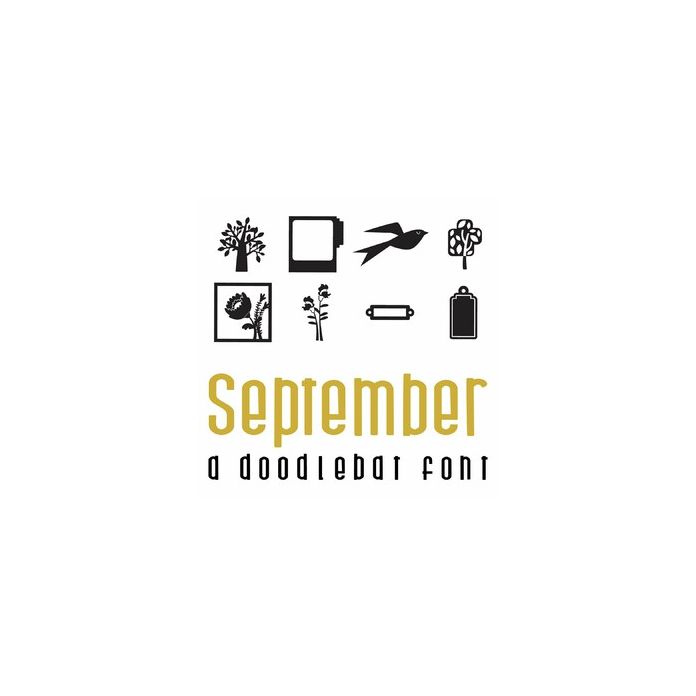
This fun doodlebat font features 26 fun Fall themed items, from trees, flowers, frames and labels. Perfect for journaling, cards, gifts, decor, crafts, scrap book pages, planner stickers and more!